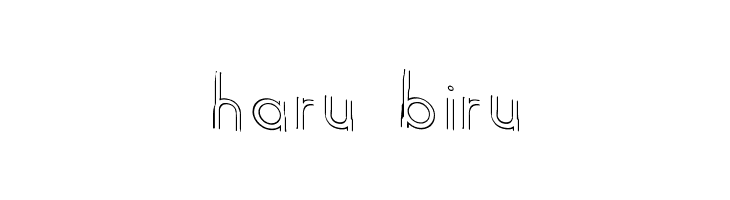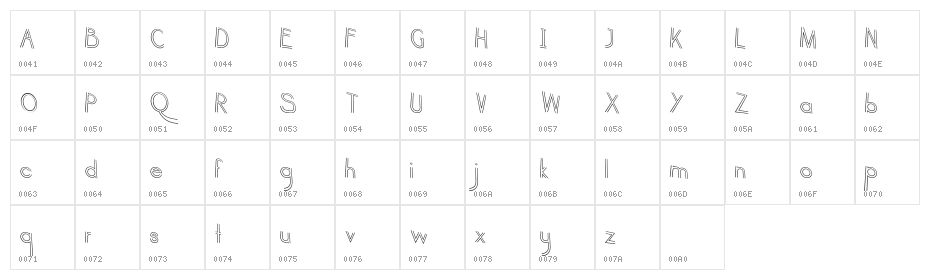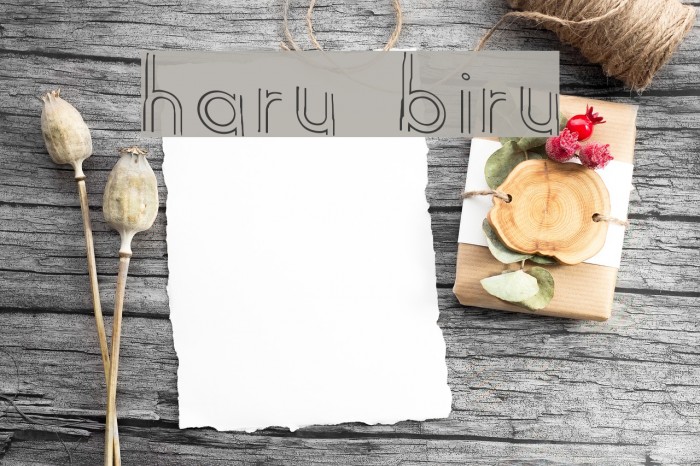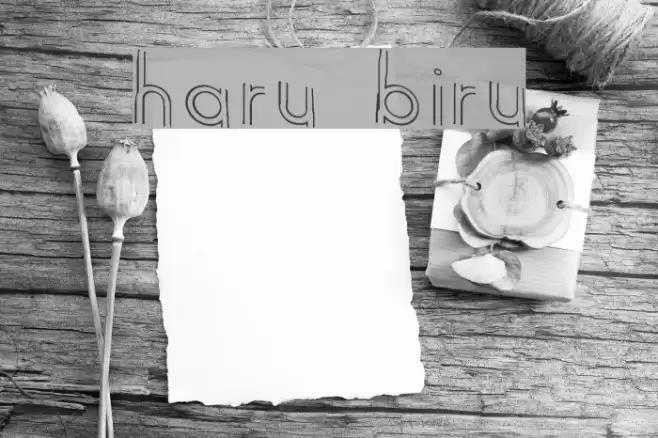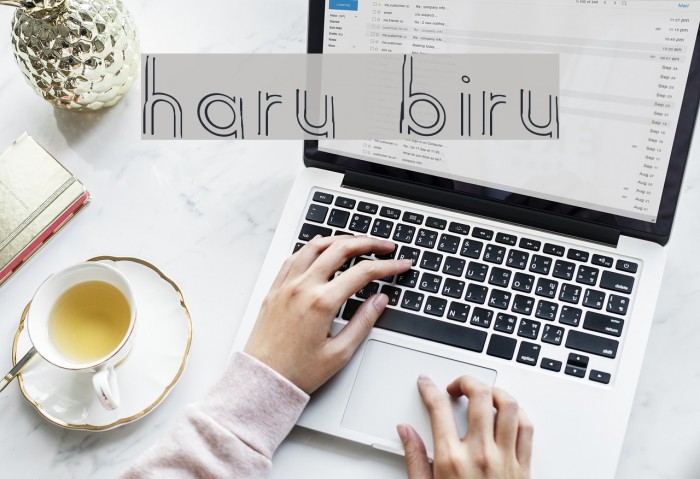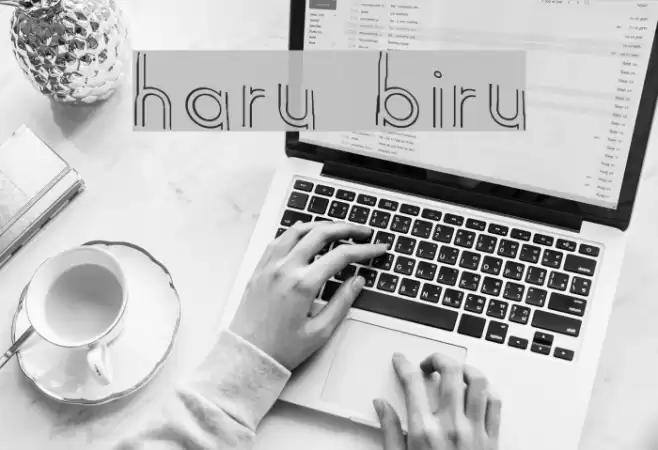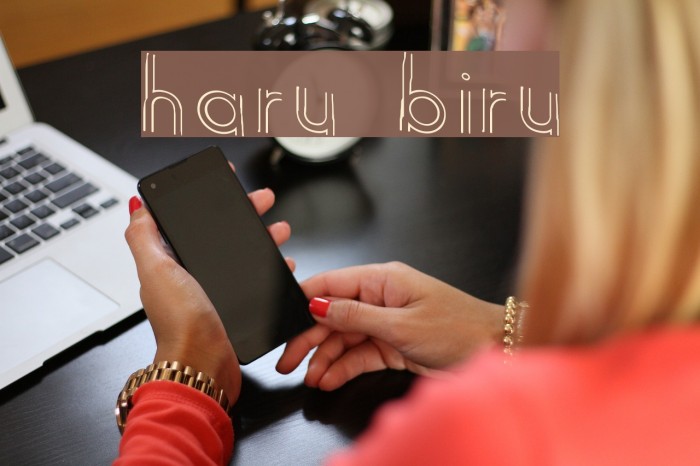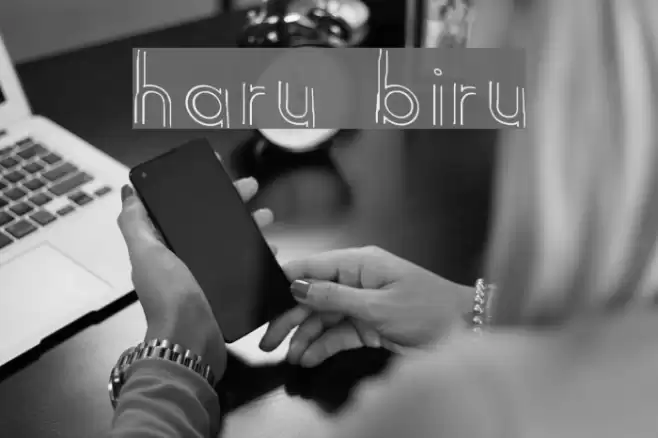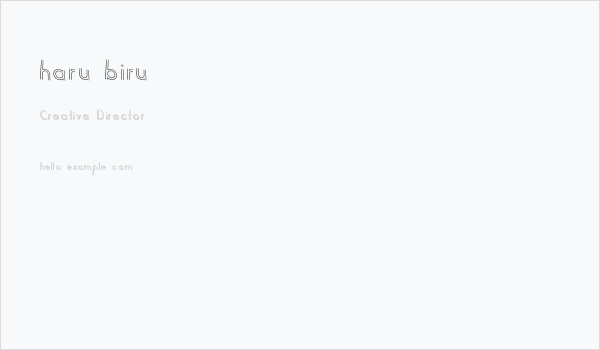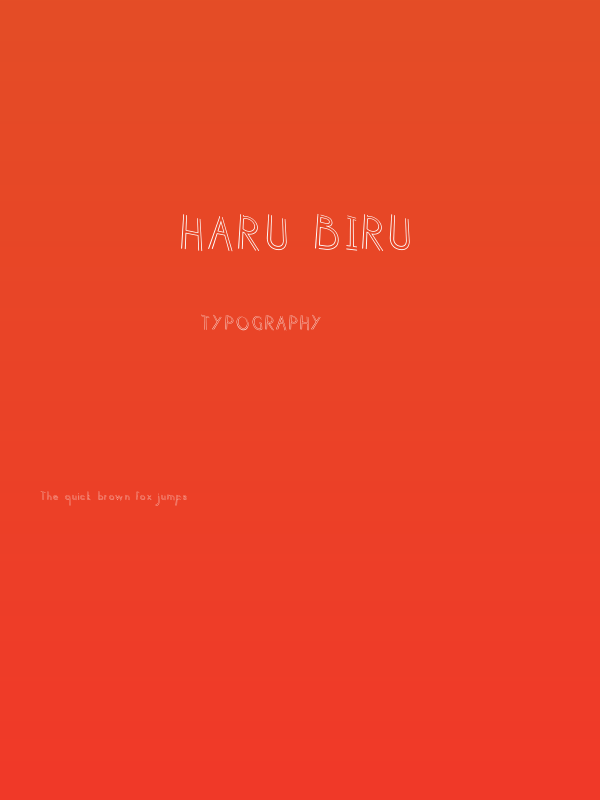
haru biru Font
haru biru Description
This font features a unique and artistic design with a modern twist. Each character is composed of multiple parallel lines, creating a sense of depth and movement. The uppercase and lowercase letters maintain a consistent style, with clean lines and geometric shapes. The font's playful and creative appearance makes it stand out, while still being legible. It is suitable for projects that require a distinctive and contemporary look, such as branding, posters, and digital art. The font's design is both eye-catching and versatile, making it a great choice for various creative applications.
| Proposed Projects | Branding, posters, digital art, creative projects. |